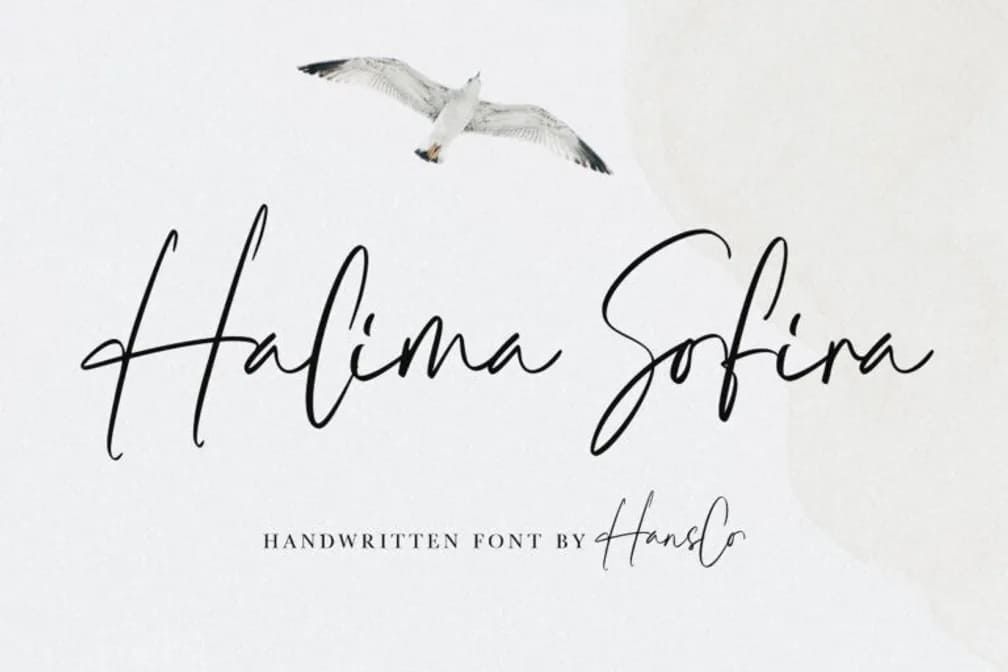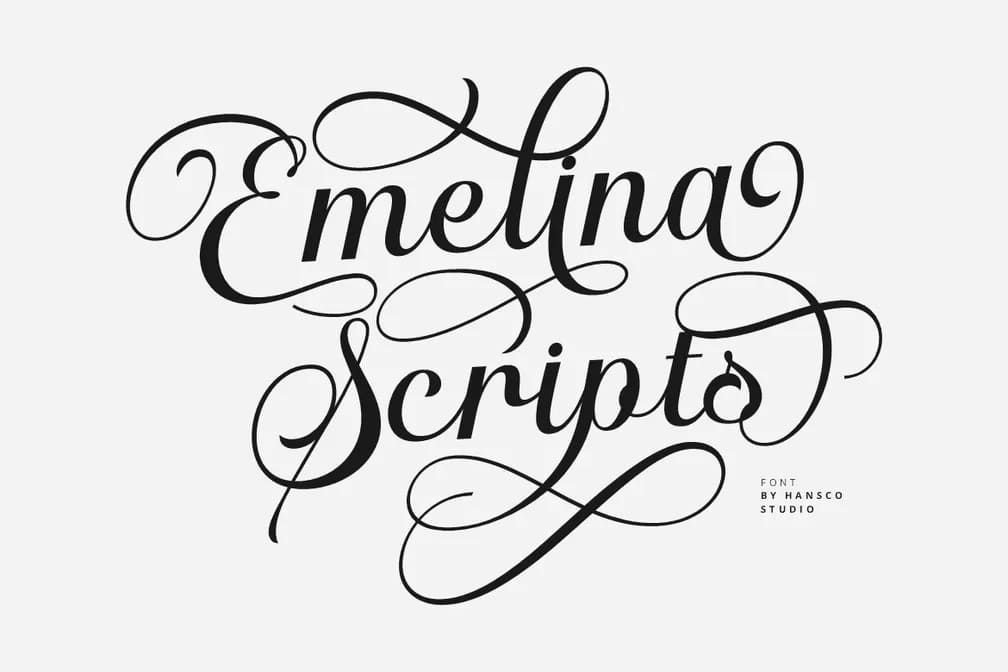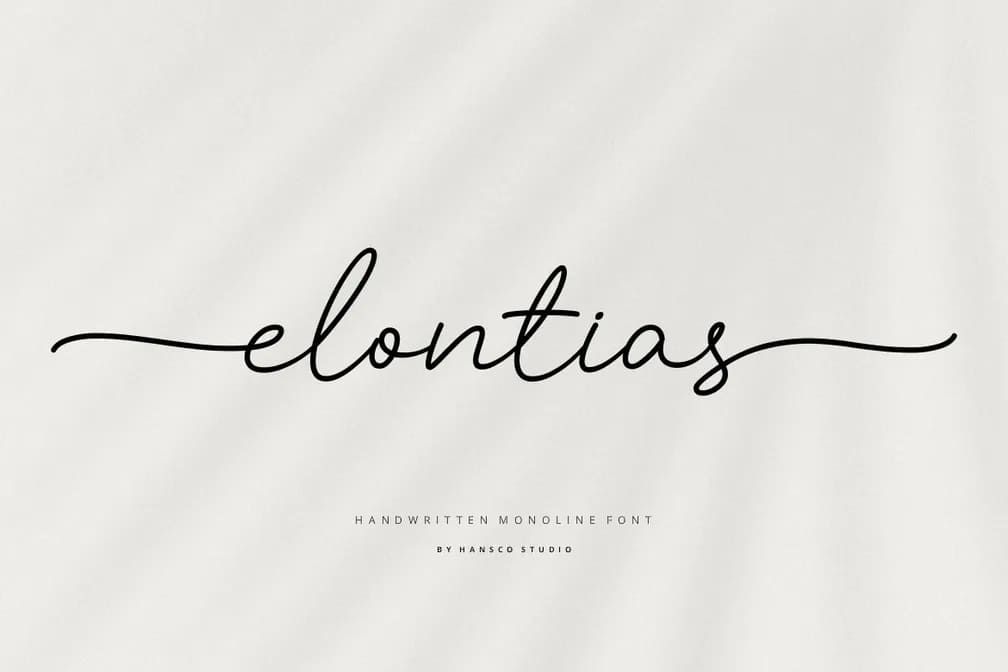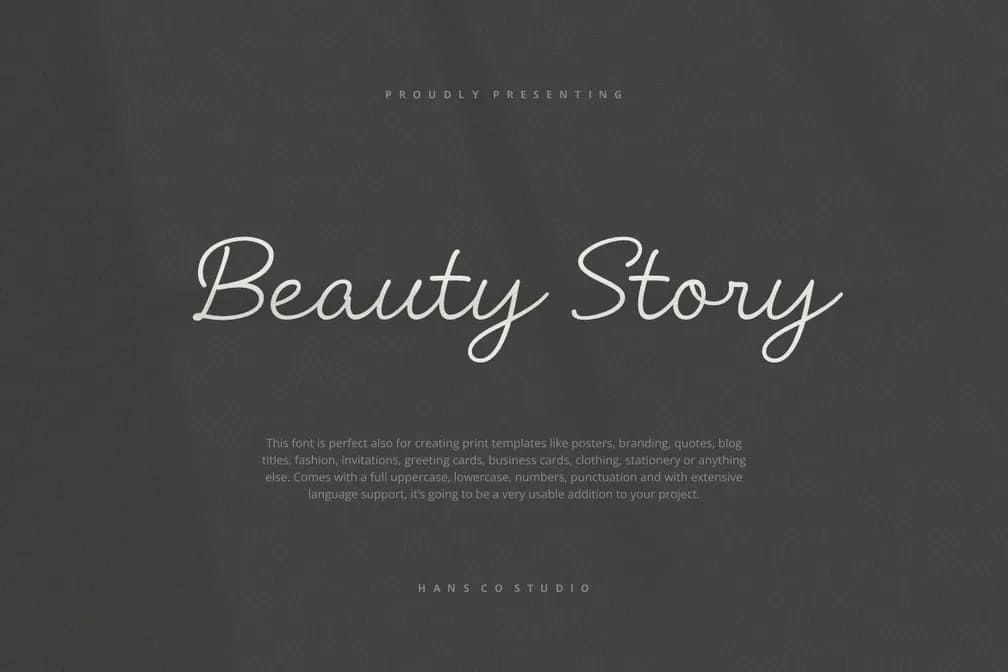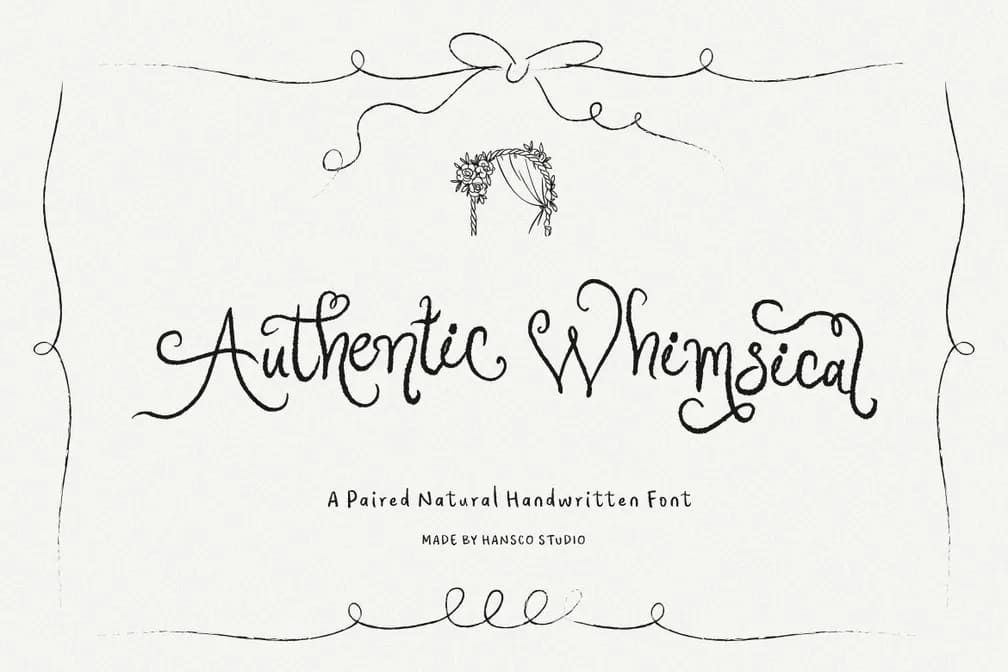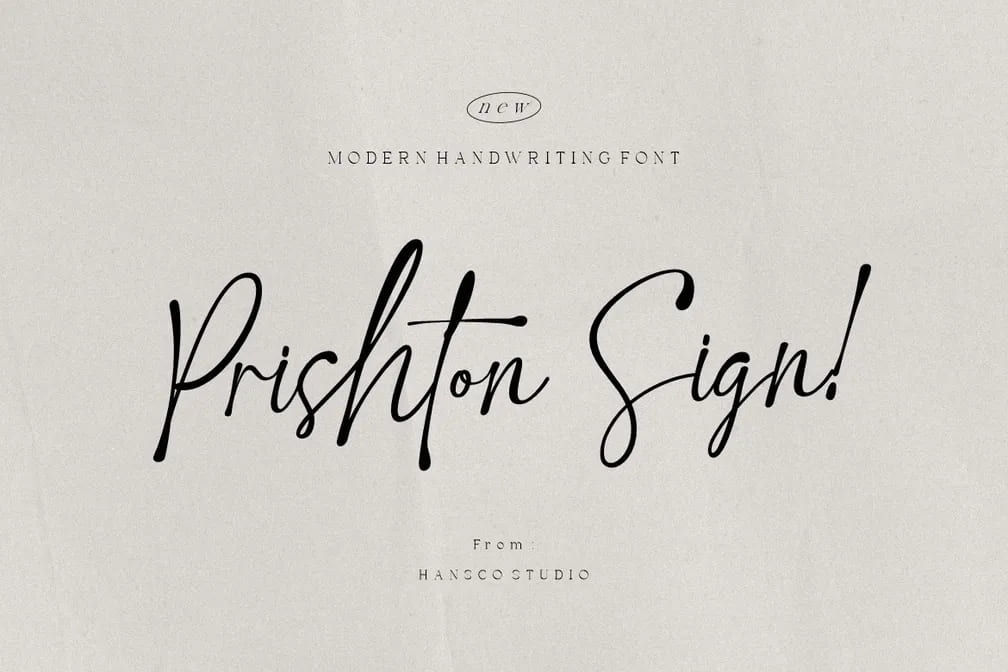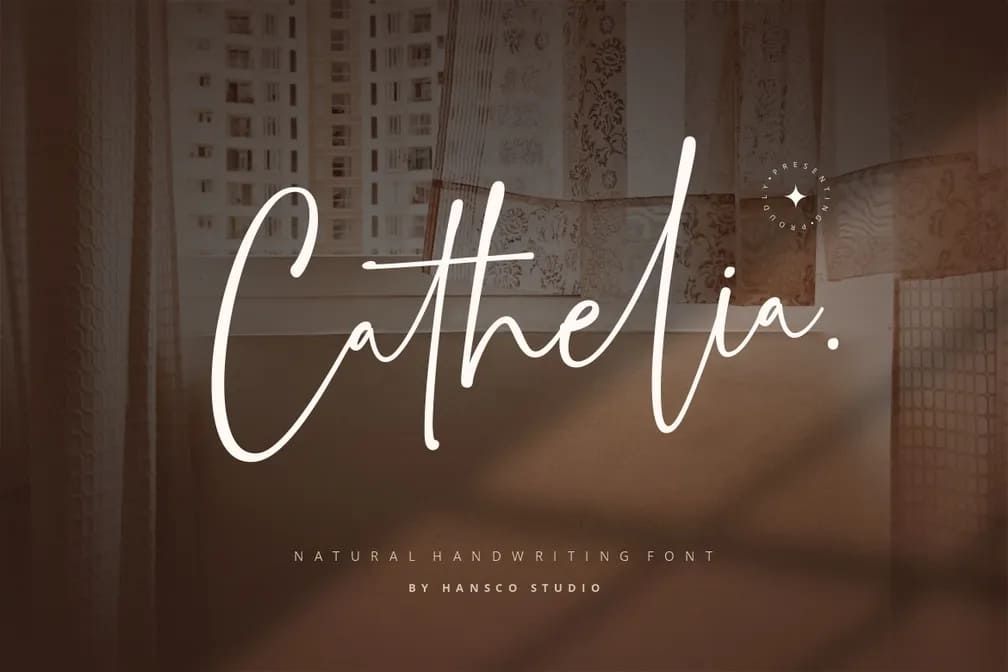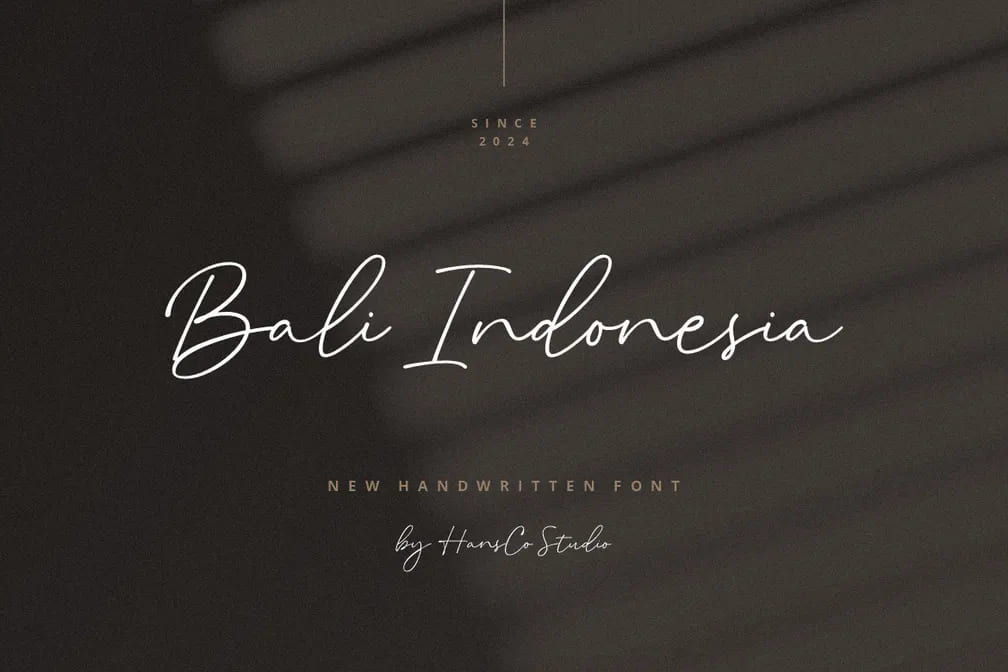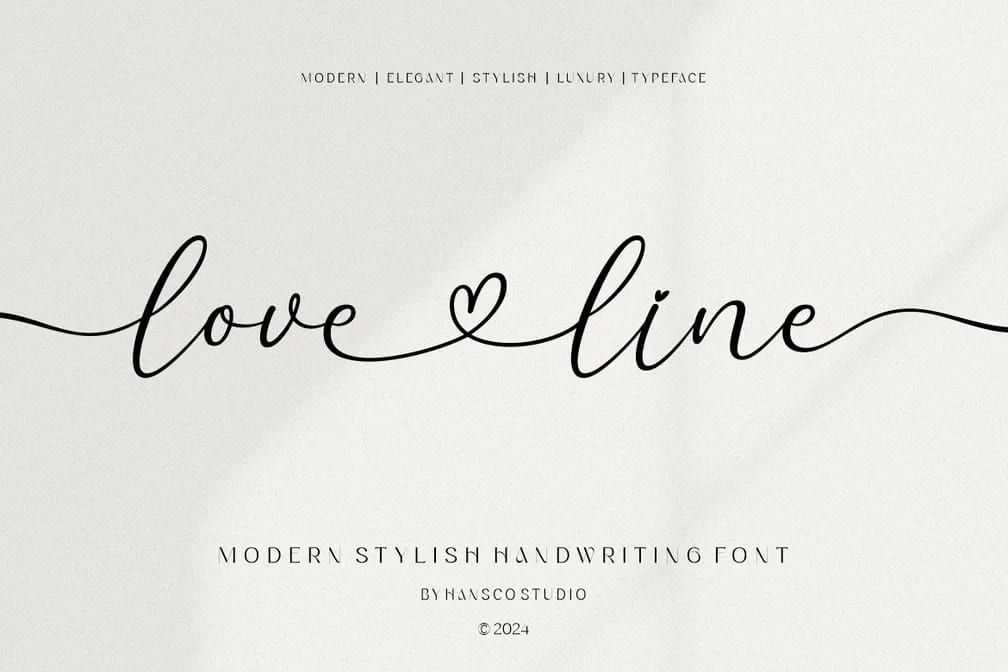
40+ Wedding Ceremony Fonts for a Memorable Celebration
Weddings today are all about creating a visually captivating and personal experience, where every detail helps shape one of the most meaningful days of your life. Therefore, this article brings you a curated collection of wedding ceremony fonts to make your celebration even more beautiful than you imagined.
Key takeaways:
• Wedding celebrations are becoming more diverse, with couples embracing unique and personalized styles.
• Décor plays a crucial role in setting the overall atmosphere and visual impact of the event.
• Choosing the right fonts can enhance the aesthetic and make the celebration feel more memorable and cohesive.
40+ Wedding Ceremony Fonts You Should Try
As Forbes stated, with the wedding season in full swing, celebrations are becoming more diverse in style, and décor plays a significant role in shaping the atmosphere. These are the best wedding ceremony fonts to make your special day remarkable.
1. Halima Sofira
Halima Sofira is a charming handwritten typeface that blends a refined yet relaxed feel, making it an excellent choice for wedding invitations and ceremonies, and other projects.
2. Emelina Scripto
Emelia Scripts brings elegance and energy to wedding celebrations with its sleek, ornate strokes and flowing swashes. Designed to highlight the artistic side of your wedding, it feels both visually striking and memorable.
3. Elonitias
Elontias is a monoline handwritten typeface that gives a human touch with seamless strokes, making your special days more intimate.
4. Beauty Story
A wedding day is not only about sharing moments, but also about telling a story. With Beauty Story, you can express your happiest memories through delightful strokes that turn your personal journey into a beautifully memorable experience.
5. Authentic Whimsical
Authentic Whimsical is a beautifully ornate curly script with a magical, enchanting vibe, featuring expressive swashes and ligatures that make your wedding party font look stunning.
6. Prishton Sign
Prishton Sign is one of the best wedding fonts, featuring a smooth, contemporary handwritten style with a polished, natural flow that makes it perfect for wedding ceremony designs and premium branding.
7. Cathelia
Cathelia is an innovative handwritten typeface with graceful charm, delivering an appealing look across creative projects.
8. Bali Indonesia
Bali Indonesia is a stylish handwritten font that combines modern simplicity with a delicate elegance, making it a lovely choice for wedding-themed designs and creative projects.
9. Love Line
Love Line offers a delicate letterform with a tender, elegant touch, making it a beautiful choice for wedding ceremonies and romantic designs.
10. Wellstone
Wellstone is a luxurious script font with lovely flowing details and stylish ligatures, designed to deliver a sophisticated handwritten feel with graceful curves and polished letterforms.
11. Samantha
Samantha Calligraphy is a polished modern script typeface, showcasing fluid strokes and delicately crafted letterforms. It creates a sophisticated handwritten impression with a timeless, harmonious finish.
12. Magdelin
Magdelin is a beautifully refined script font with smooth, flowy curves and delicate details, making it a perfect choice for fanciful wedding designs.
13. Labajo
Labajo is a dazzling calligraphy font with flowing strokes and stylish swashes, making it a perfect choice for a romantic wedding invitation and ceremony.
14. Semperto
Semperto is a charming calligraphy script with a soft, bouncy flow and feminine elegance, making it a beautiful choice for dreamy wedding designs.
15. Laurania
Laurania offers elaborate swashes and ligatures to emphasize craftsmanship. It’s ideal to highlight an imaginative theme on your wedding day.
16. Restoe Bumi
Restoe Bumi is a graceful handwritten script font with a natural brush-style flow and a subtly refined casual charm. This font offers a smooth, organic feel that adds warmth and understated elegance to any visual design.
17. Amellia Ink
Amellia Ink is a delicate and sophisticated handwritten script font with a smooth, ink-inspired flow, designed to bring a timeless touch while maintaining an effortlessly elegant appearance.
18. Carlista Buttery
Carlista Buttery is one of the good wedding fonts, offering a luxurious handwritten style with smooth flowing strokes and a beautiful charm. Its graceful letterforms create a romantic visual that works beautifully for invitations and wedding signage.